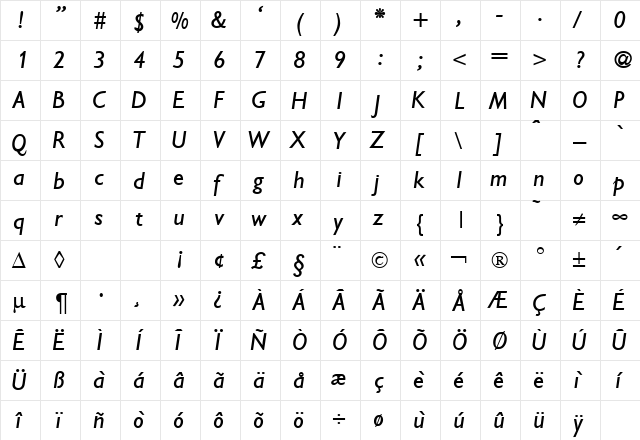
Gibson RegularItalic
Design Context for Gibson Typeface
Gibson is a composed and adaptable typeface that performs quietly and consistently across a wide range of design contexts. Its italic angle brings a sense of urgency and motion to the letterforms.
Pro Tip: Try Gibson for annotation and caption copy alongside an upright companion — the contrast in angle creates a dynamic but ordered typographic system.